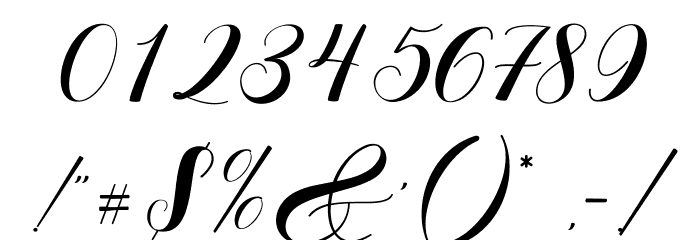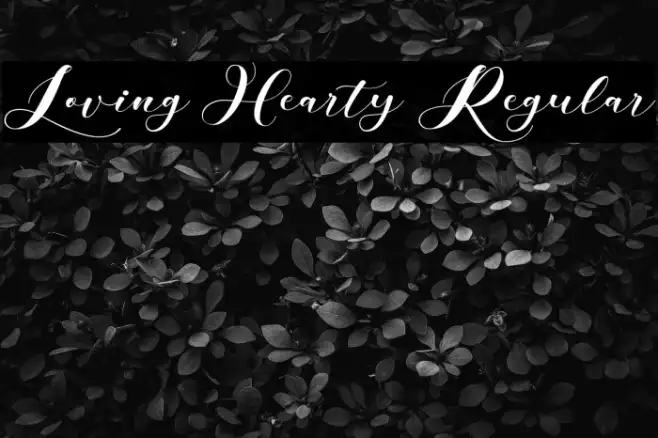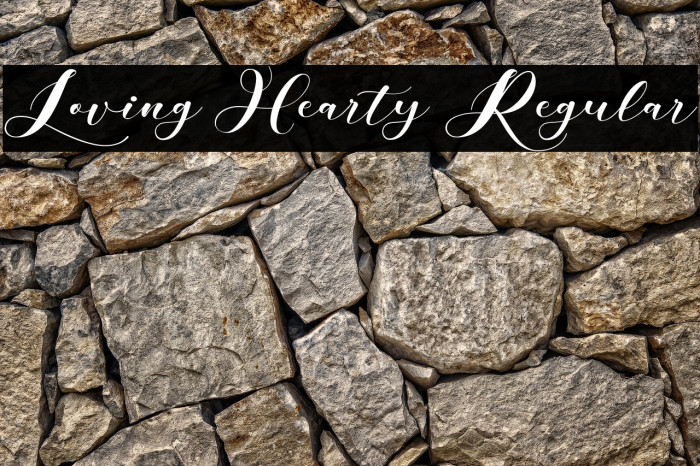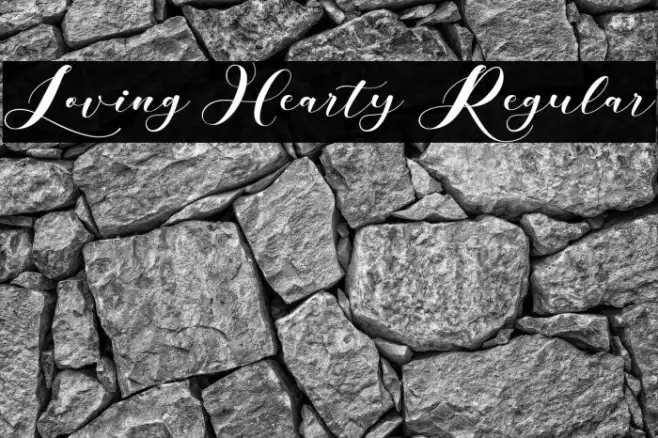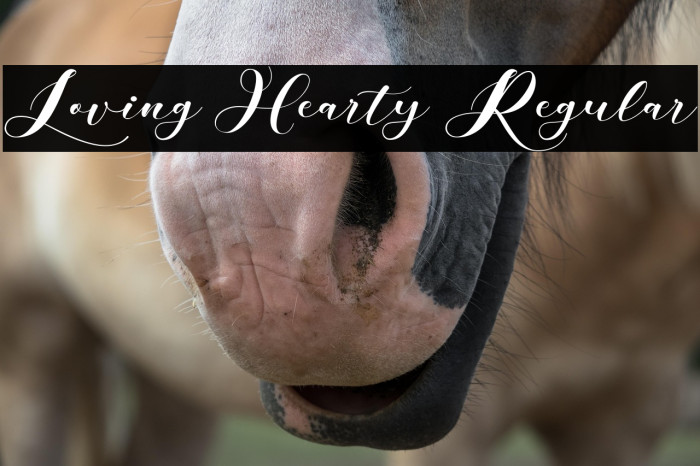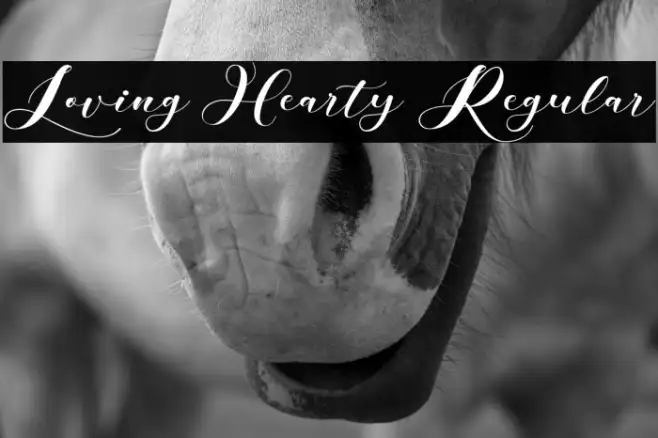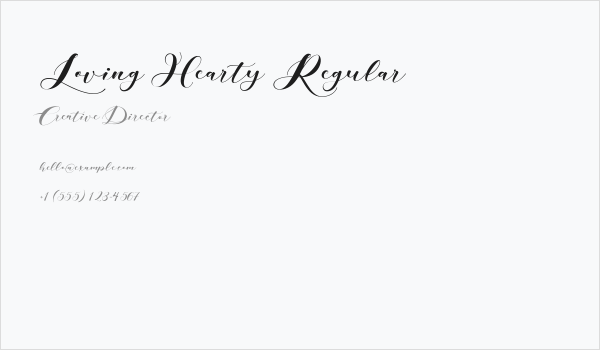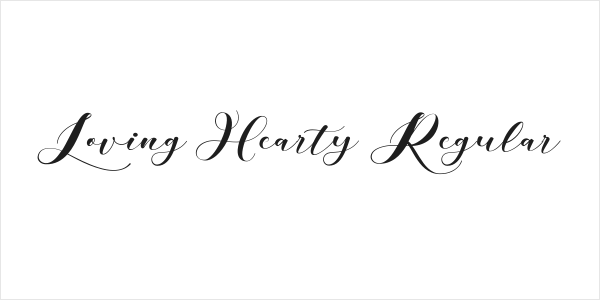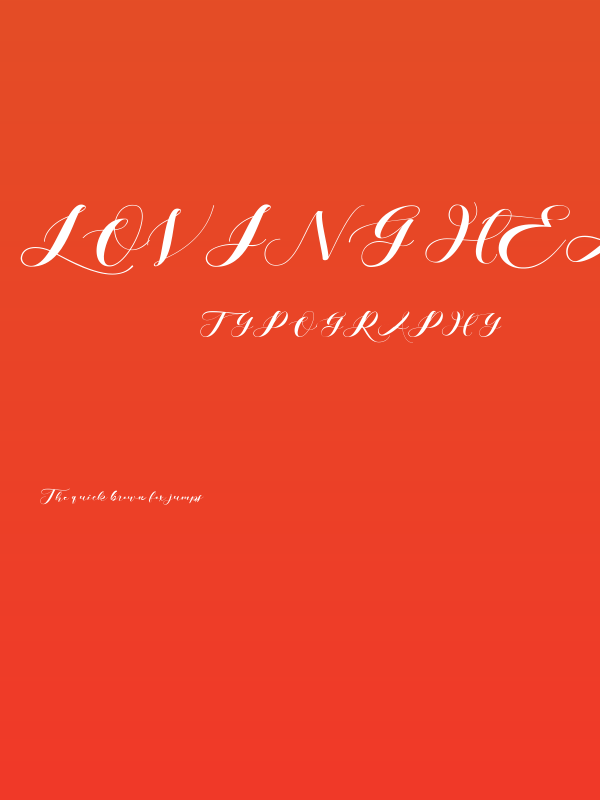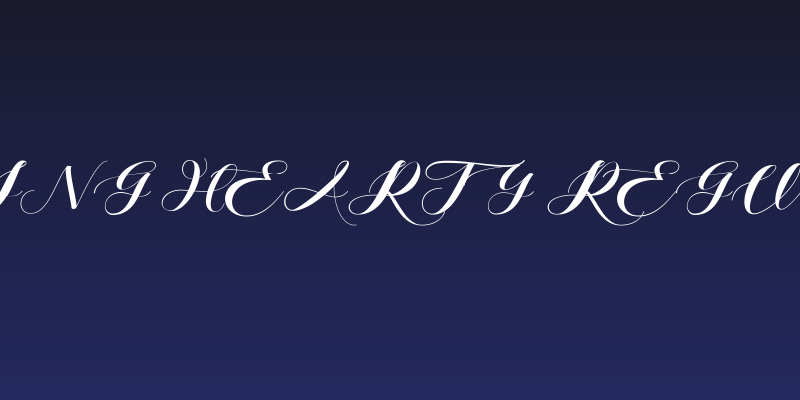
Loving Hearty Regular Font
Loving Hearty Regular Description
This elegant script font features flowing, interconnected letters that exude a sense of romance and sophistication. The uppercase letters are adorned with intricate swashes, adding a decorative flair, while the lowercase letters maintain a smooth, cursive style. The numerals are designed with a classic touch, complementing the overall aesthetic. Special characters are crafted with the same attention to detail, making this font versatile for various design needs. The font's graceful curves and fluid strokes make it ideal for projects that require a touch of elegance and charm.
| Proposed Projects | Wedding invitations, greeting cards, branding, and elegant logo designs. |